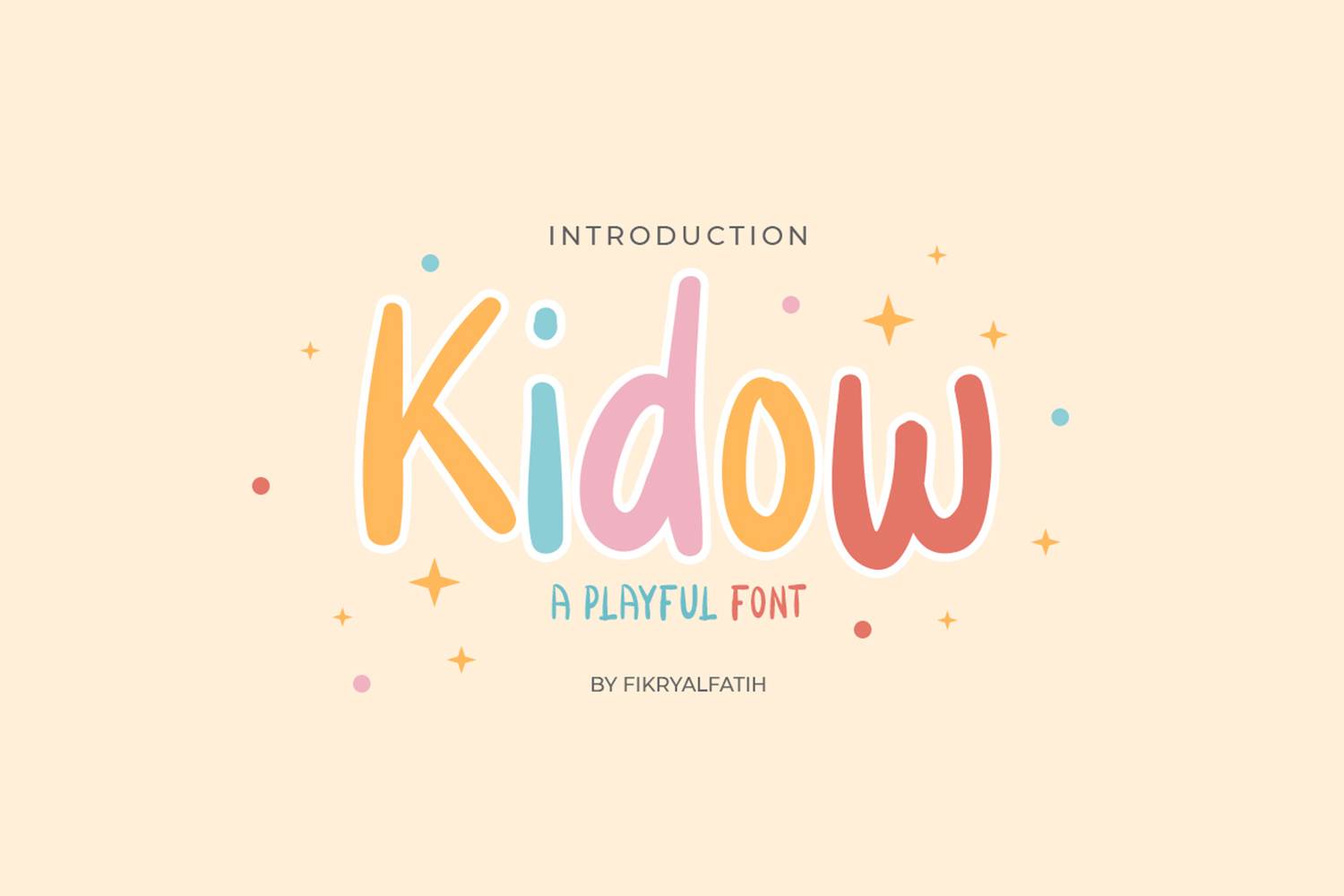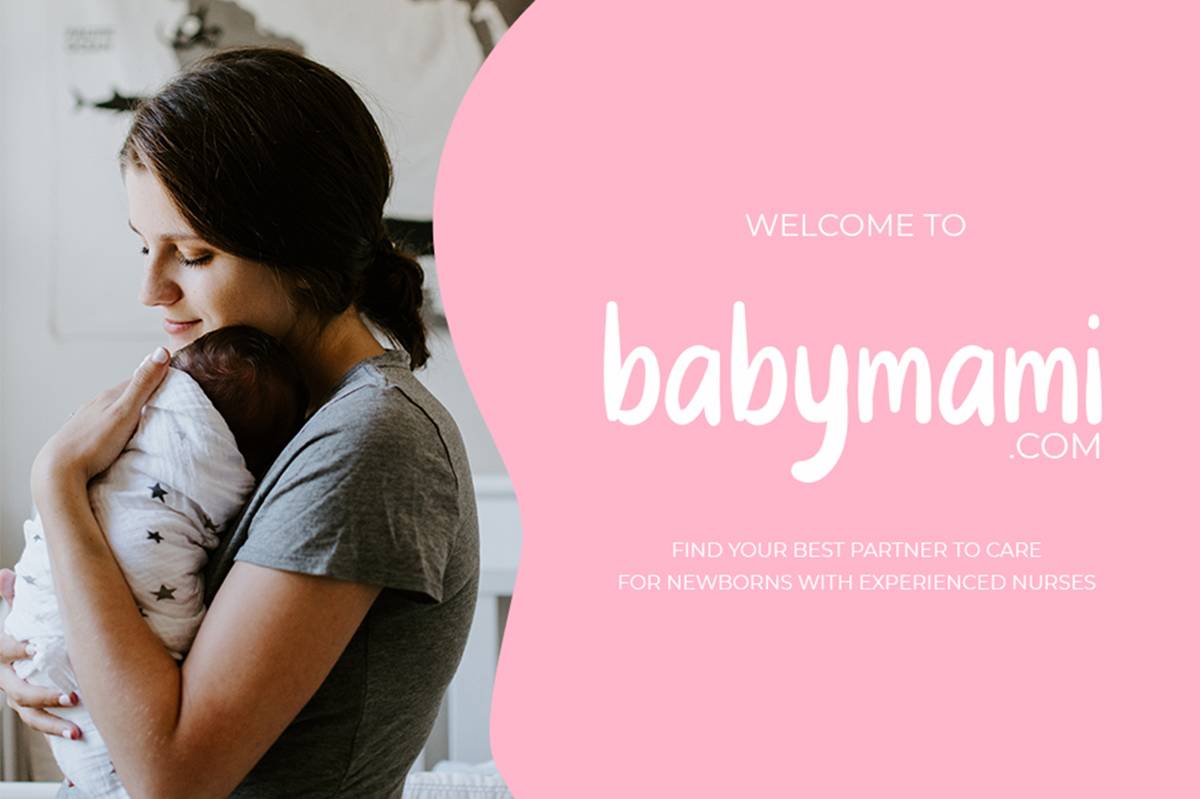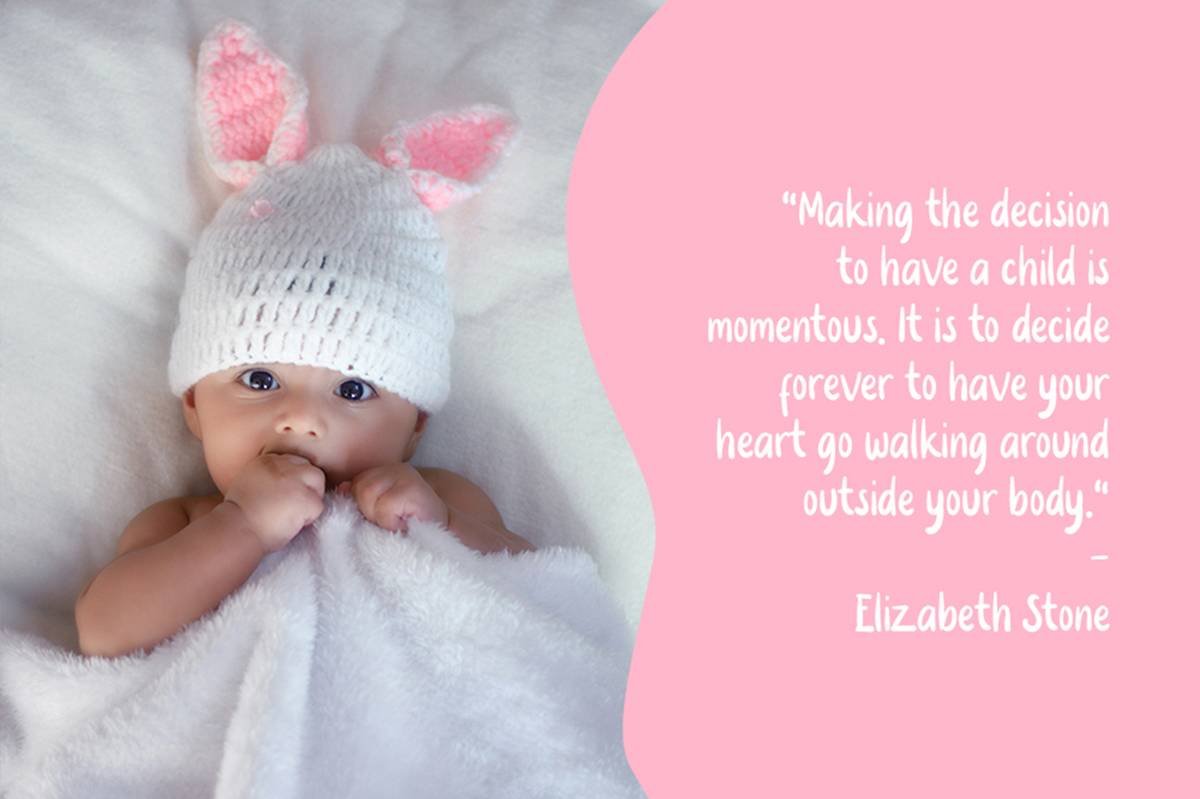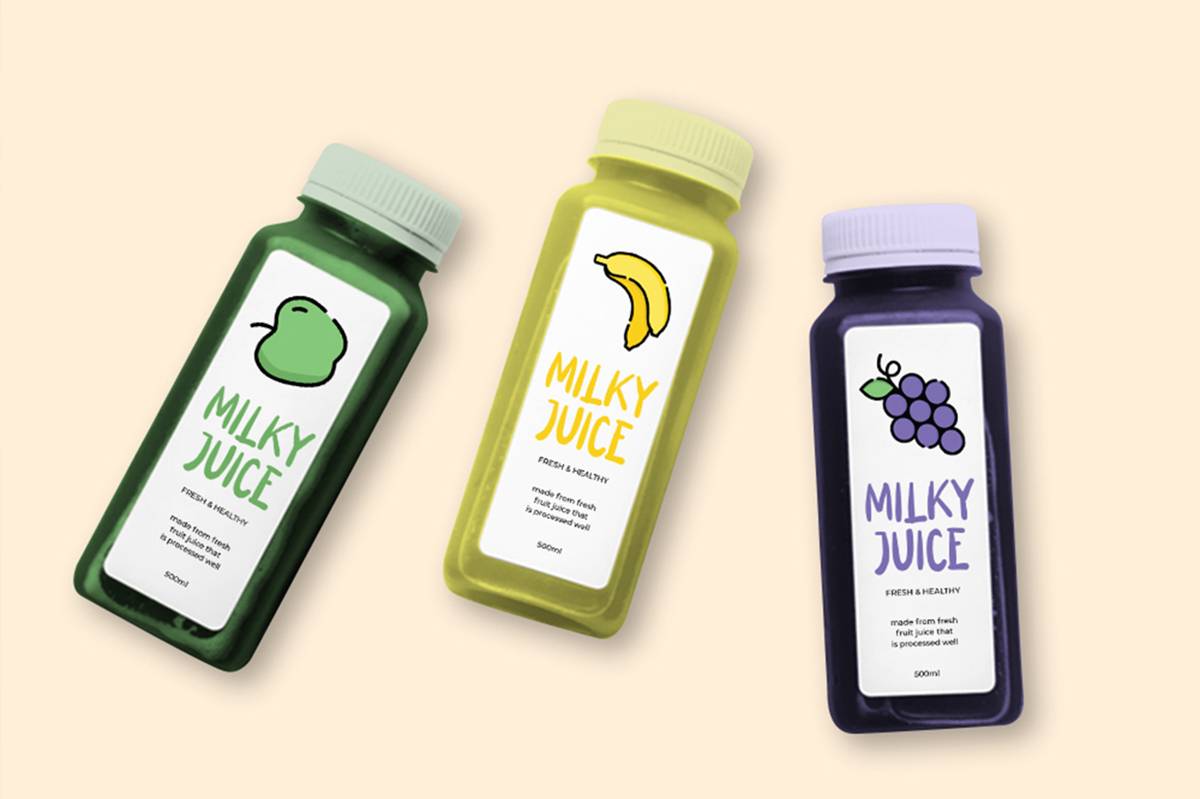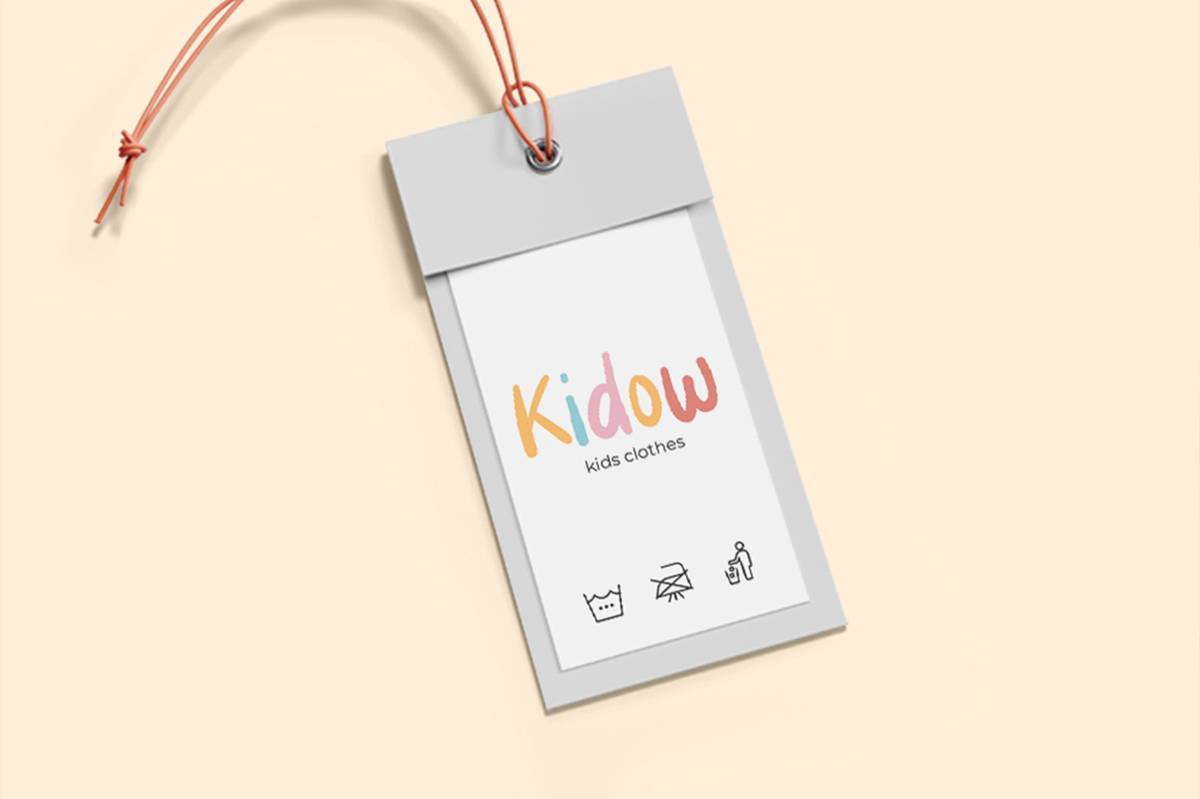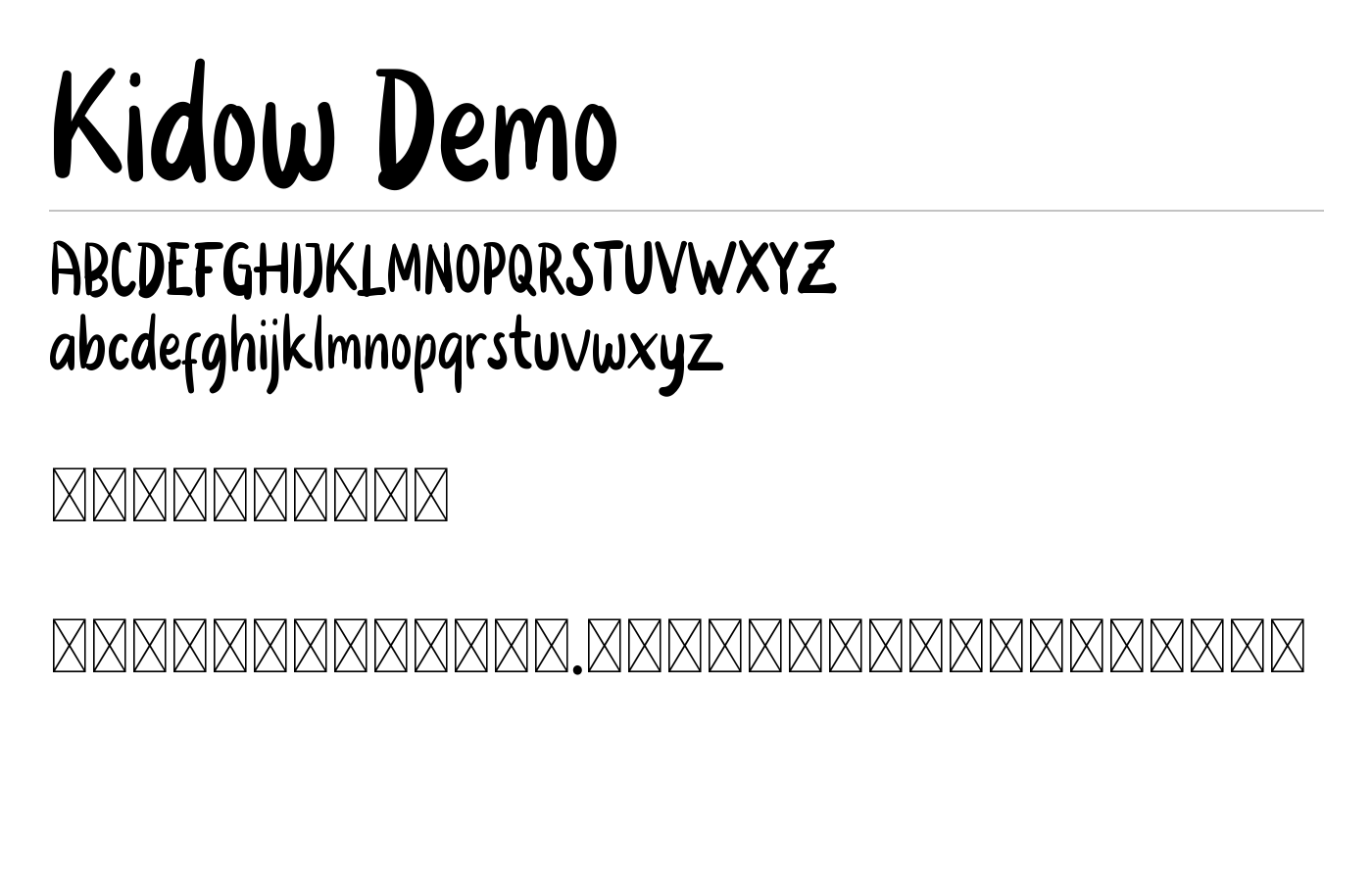
Kidow Playful is a casual, hand-drawn sans serif font with a friendly and informal vibe. Its tall, slightly irregular letterforms and rounded edges create a whimsical, approachable feel, making it ideal for children's books, playful branding, and creative projects aiming for a personal, fun touch. This font works best in headlines and display text where a lively, youthful personality is desired.
Kidow Playful Font
About Kidow Playful Font